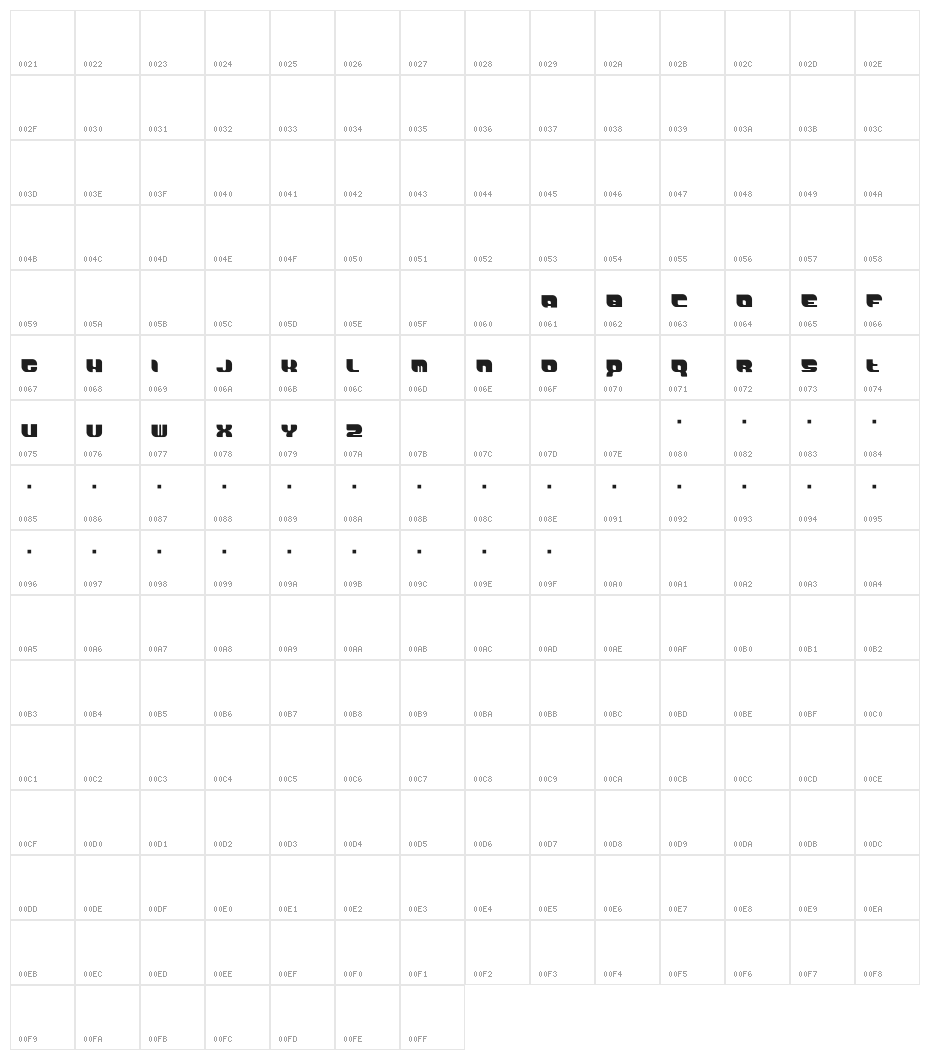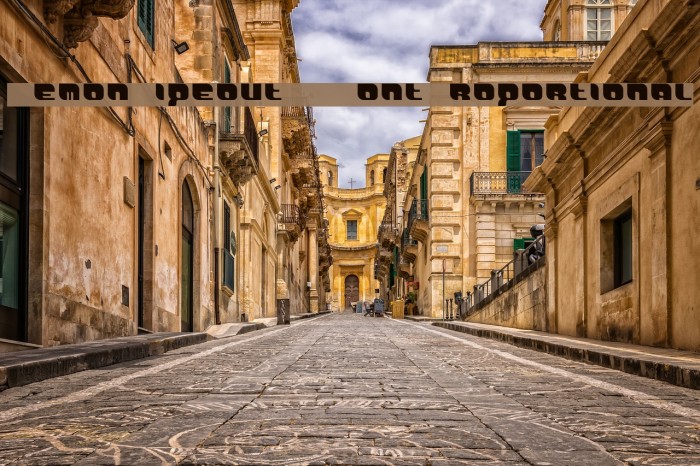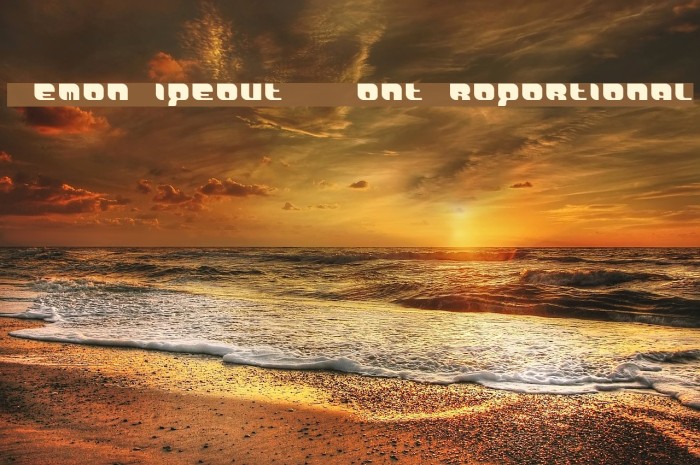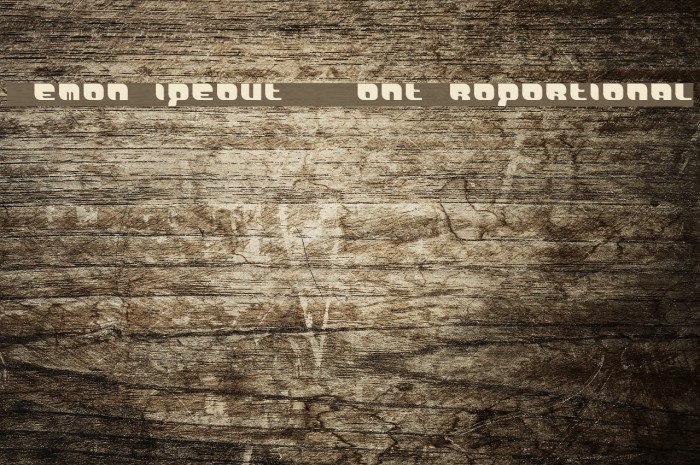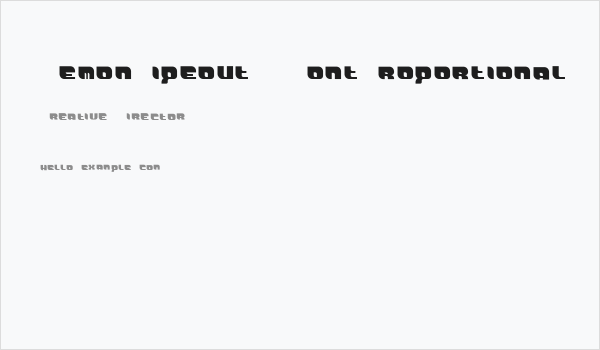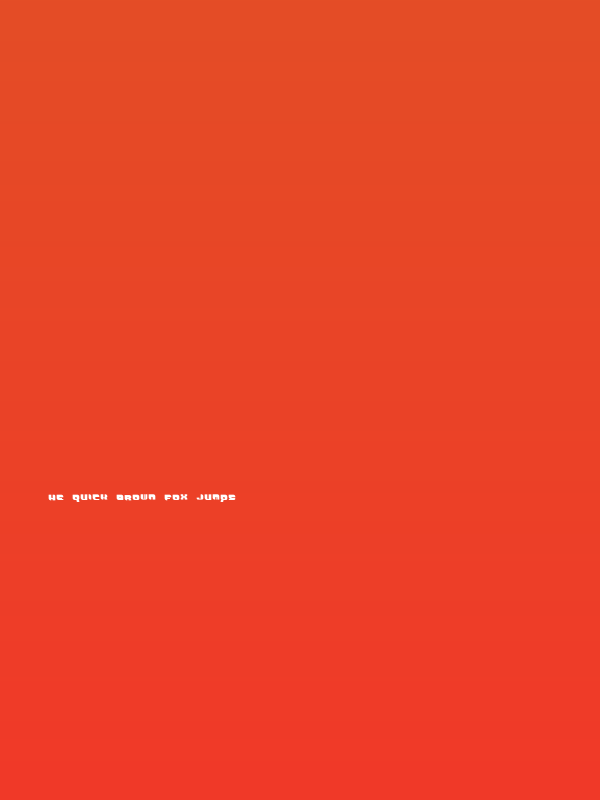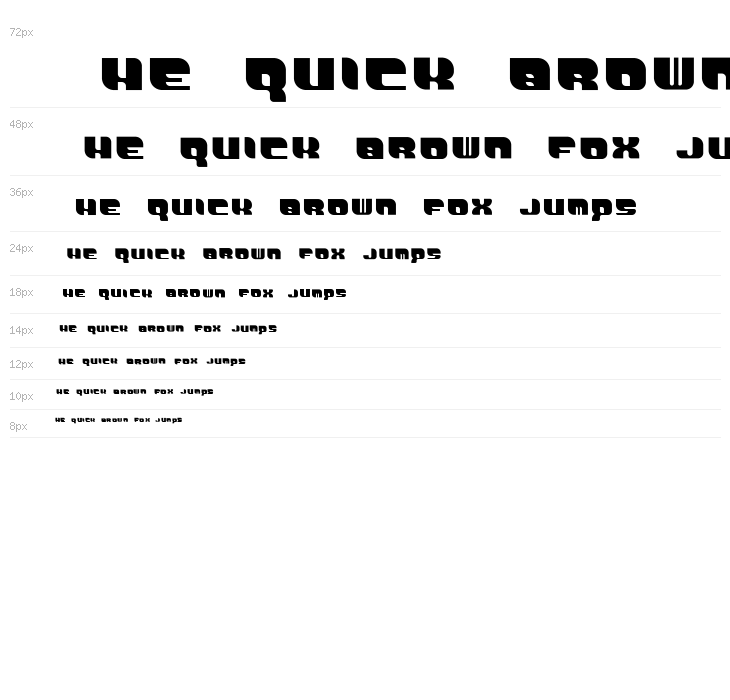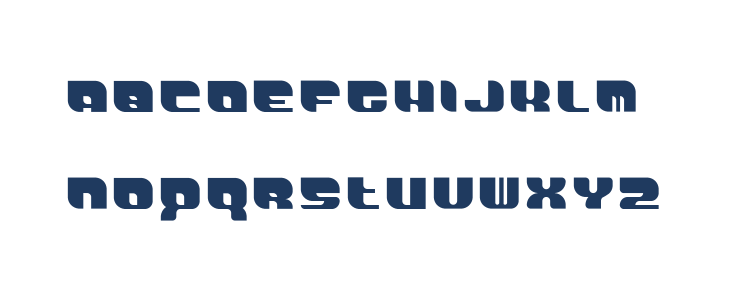
DemonWipeoutXLFontProportional Font
This font features a bold, futuristic design with a distinct geometric style. Each character is crafted with a blocky, angular appearance, creating a sense of strength and modernity. The letters have a consistent weight throughout, contributing to a uniform and cohesive look. The font's unique cut-out elements add a dynamic and edgy feel, making it stand out in any design. The spacing between characters is tight, enhancing its compact and impactful presence. This font is ideal for projects that require a bold statement and a contemporary aesthetic.
Proposed ProjectsIdeal for video game titles, tech branding, posters, and futuristic-themed designs.